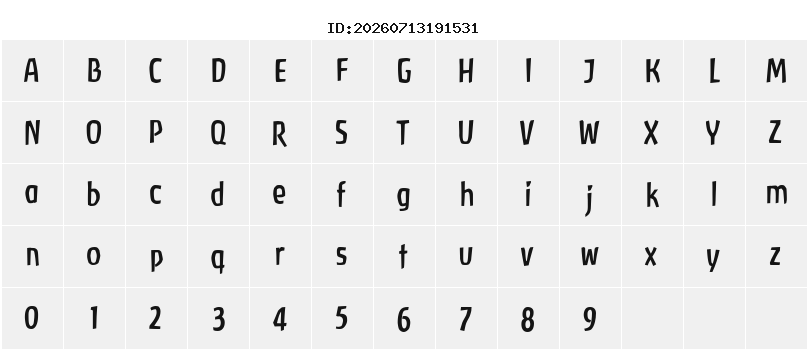
Baar Antropos Engschrift Preview
• Font Name: Baar Antropos Engschrift
• Full Font Name: Baar Antropos Engschrift
About Baar Antropos Engschrift.ttf
Baar Antropos Engschrift.ttf is a modern, elegant sans-serif font designed for ultimate readability and visual harmony. Perfect for branding, headlines, web design, and print materials.